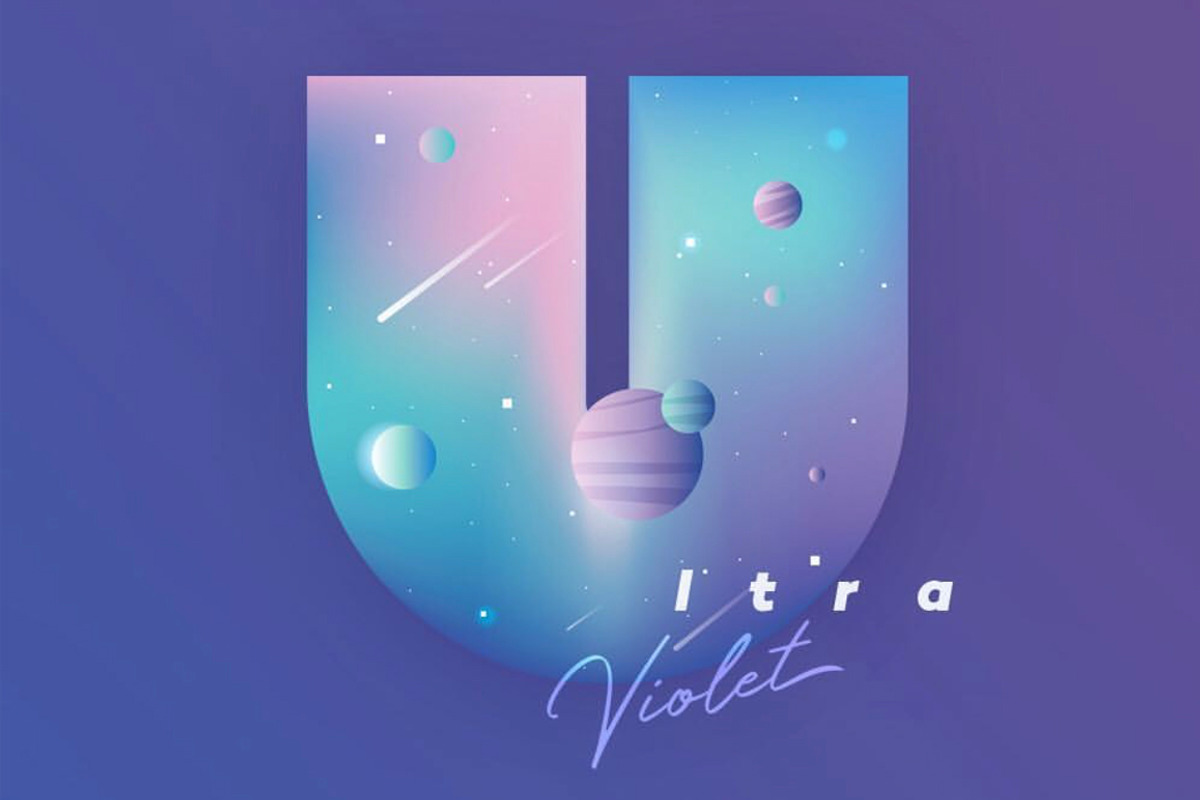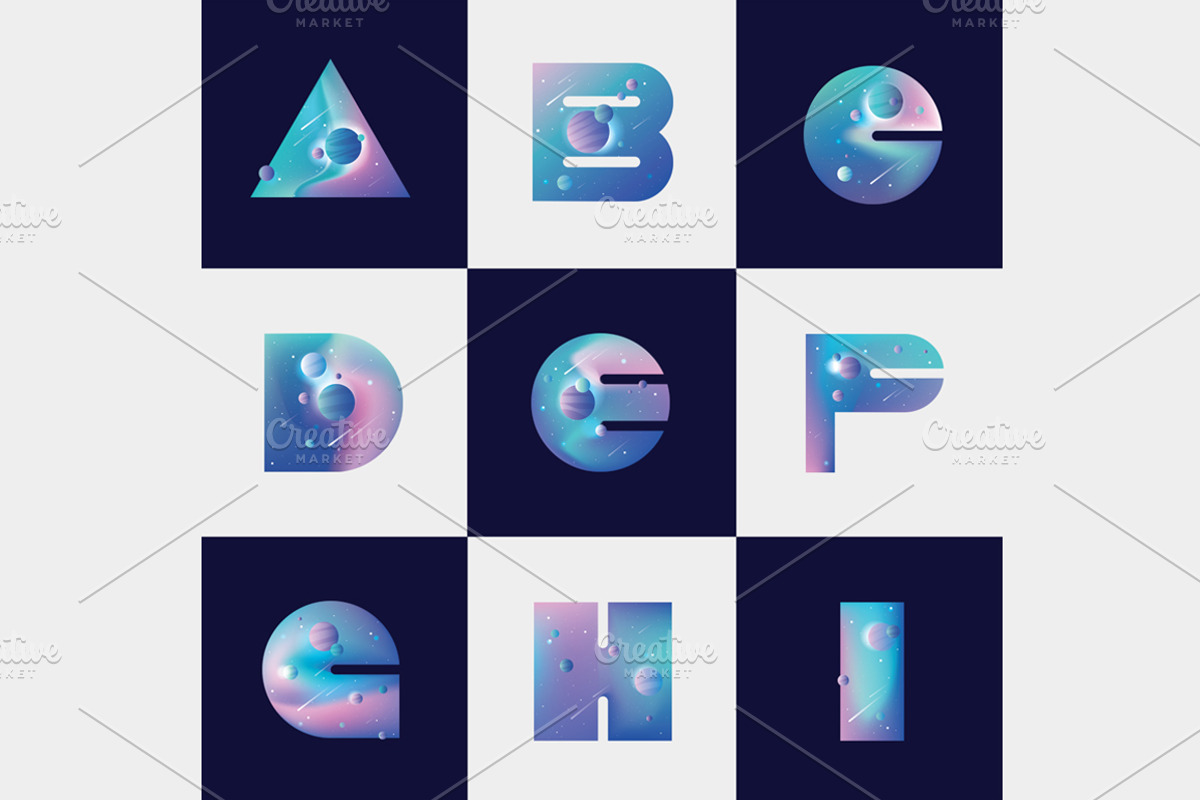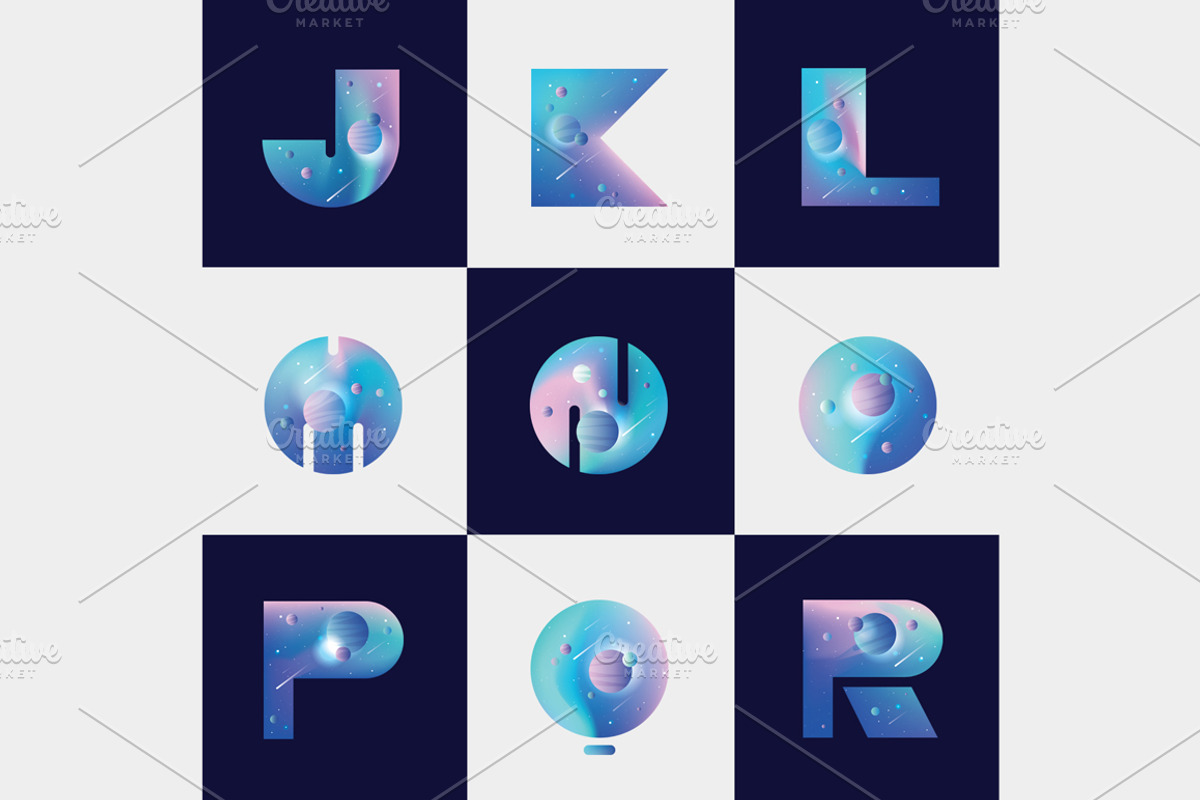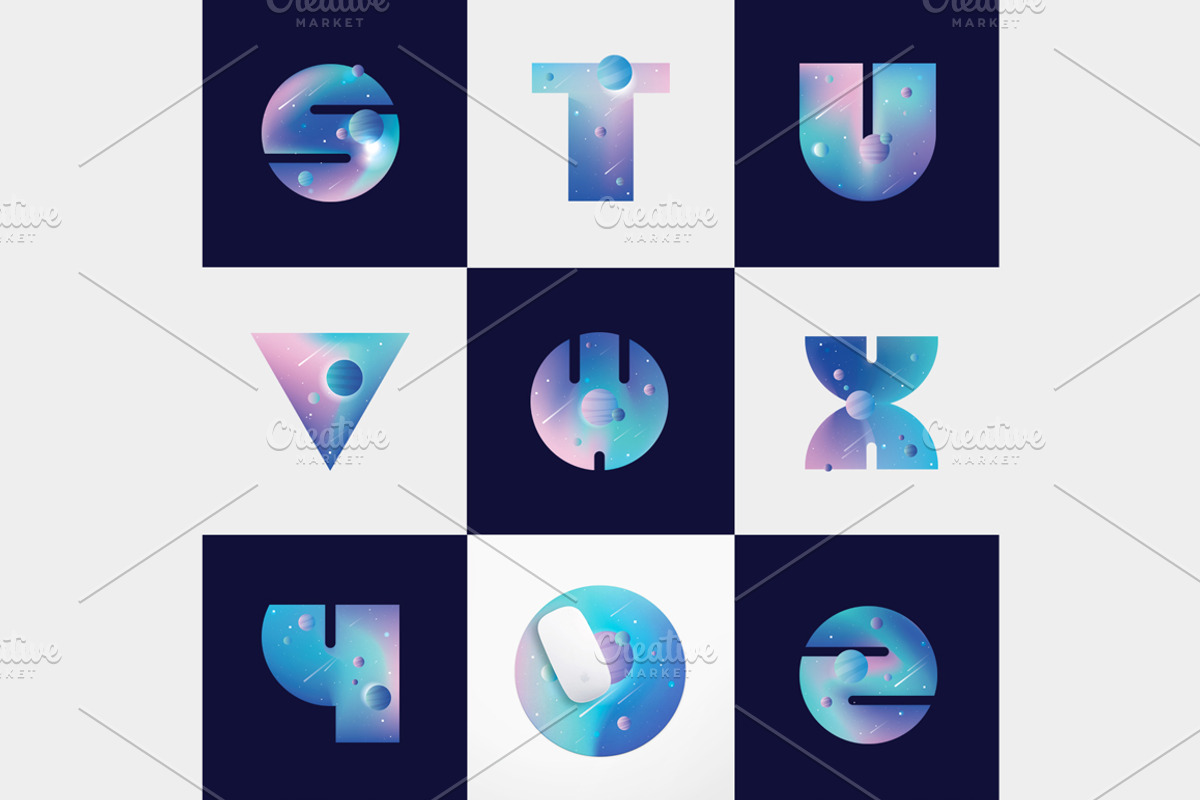
Colorful Space-vector typography
COLORFUL SPACE VECTOR TYPOGRAPHY & BACKGROUNDS
I am so happy to present you my new cool galaxy themed illustrative font! The letters can be scaled to any size which makes them suitable for both web and print purposes. Each letter depicts colorful universe with planets, stars and comets. Check the screenshots to see them!